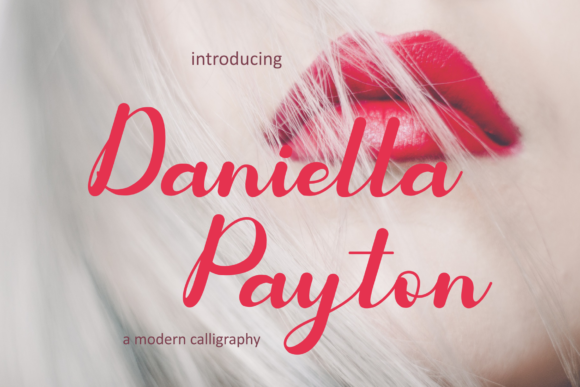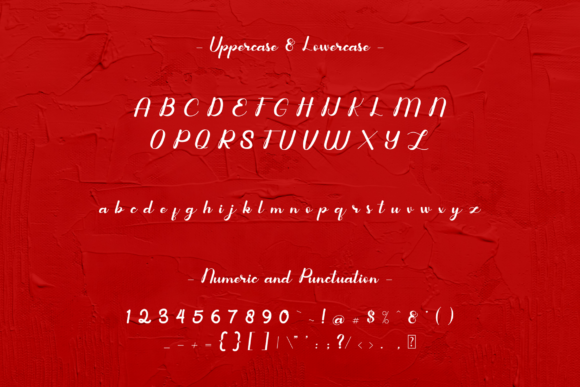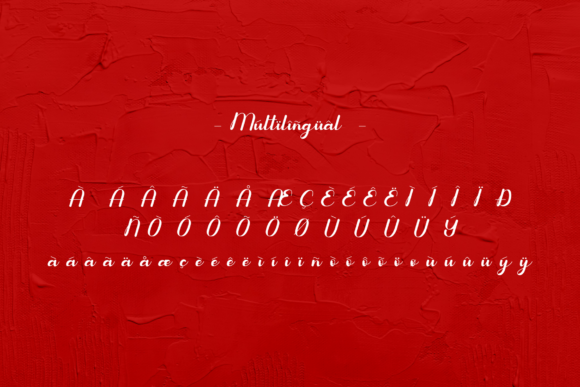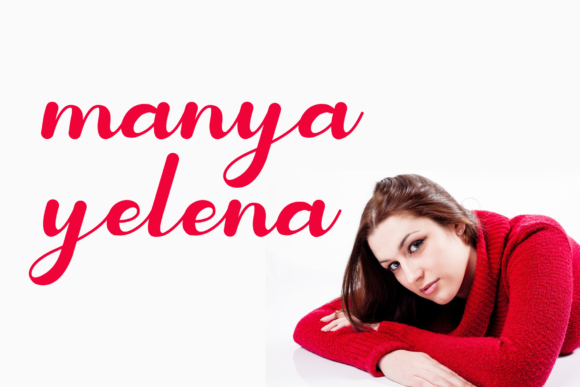
About Daniella Payton Font
Daniella Payton is a distinct and balanced script font. It will look gorgeous on wedding invitations, thank you cards, quotes, greeting cards,
logos, business cards and more.